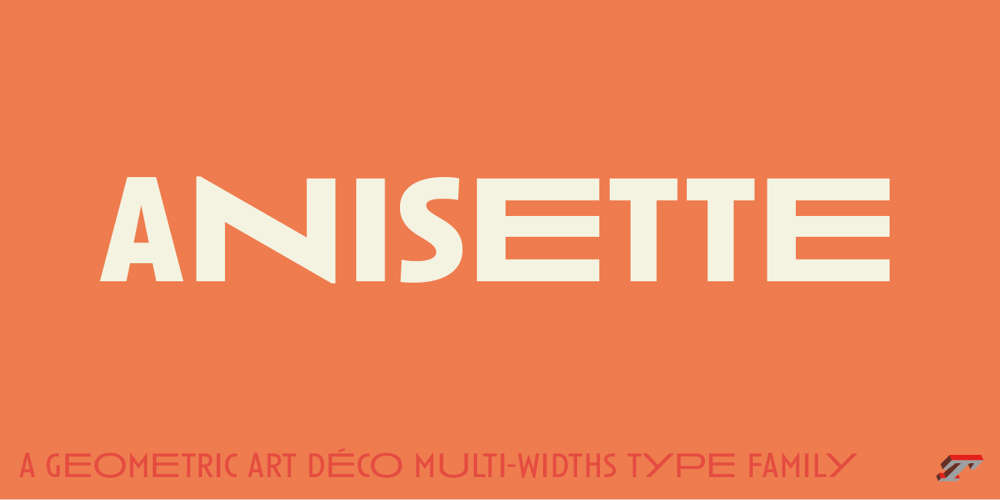
Anisette Std Font Family was designed by Jean François Porchez and published by Typofonderie. Anisette Std contains 4 styles and family package options. A geometric Art Déco multi-widths type familyAnisette has sprouted as a way to test some ideas of designs. It has started with a simple line construction (not outlines as usual) that can be easily expanded and condensed in its width in Illustrator. Subsequently, this principle of multiple widths and extreme weights permitted to Jean François Porchez to have a better understanding with the limitations associated with the use of MultipleMaster to create intermediate font weights.Anisette is built around the idea of two widths capitals can be described as a geometric sanserif typeface influenced by the 30s and the Art Deco movement. Its design relies on multiple sources, from Banjo through Cassandre posters, but especially lettering of Paul Iribe. In France, at that time, the Art Déco spirit is mainly capitals. Gérard Blanchard has pointed to Jean François that Art Nouveau typefaces designed by Bellery-Desfontaines was featured before the Banjo with this principle of two widths capitals.A simple sentence will be as diverse in its representations, as the number of Anisette variables available to the user. With Anisette, typography becomes a game, as to design any title page as flamboyant as if it has been specially drawn for it.Two typefaces, many possibilitiesThe complementarity between the two typefaces are these wide capitals mixed with narrow capitals for the Anisette while the Anisette Petite – in its latest version proposes capitals on a square proportions, intermediate between the two others sets. Anisette Petite proposes capitals in a square proportion, intermediate between the two other sets, all of which are interchangeable. In addition, Anisette Petite also includes a set of lowercase letters. Its style references shop signs present in our cities throughout the twentieth century.Anisette, an Art Déco typefaceAnisette: Reveal your typographic expertiseClub des directeurs artistiques, 46e palmarèsBukva:raz 2001Slanted: Contemporary Typefaces #24